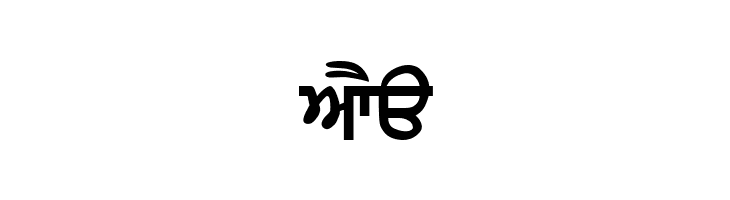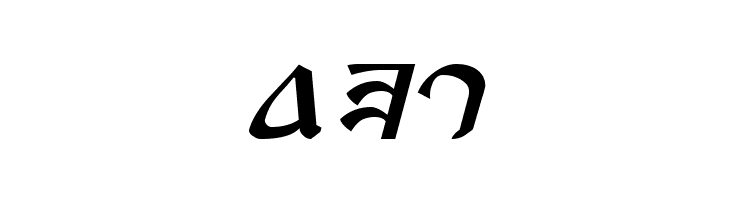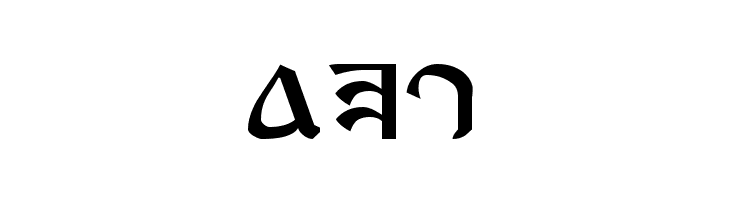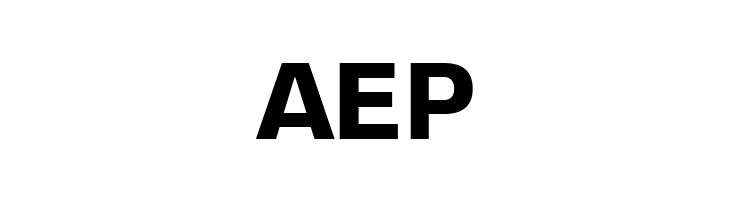
• Analogue Reduced 75 Bold
A bold, modern sans-serif font with clean lines and high legibility.
• Analogue Reduced 76 Bold Oblique
A bold, oblique font with thick strokes and a dynamic appearance.
• AnalogueReduced-Bold
A bold, modern typeface with clean lines and strong legibility.
• AnalogueReduced-BoldOblique
A bold, oblique sans-serif font with a modern and assertive style.
• Ananda Akchyar Bold
A bold, expressive script font with dynamic strokes and a traditional yet modern appeal.
• AnandpurSahib Bold
• AnaphoraTrial-Bold
A bold serif font with strong strokes and classic-modern appeal.
• AnaphoraTrial-BoldItalic
A bold and italicized font with strong, slanted strokes and a dynamic presence.
• Anayanka Bold
A bold, geometric font with sharp edges and a modern-traditional blend.
• Anayanka Bold Italic
A bold, italicized font with dynamic slant and angular design.